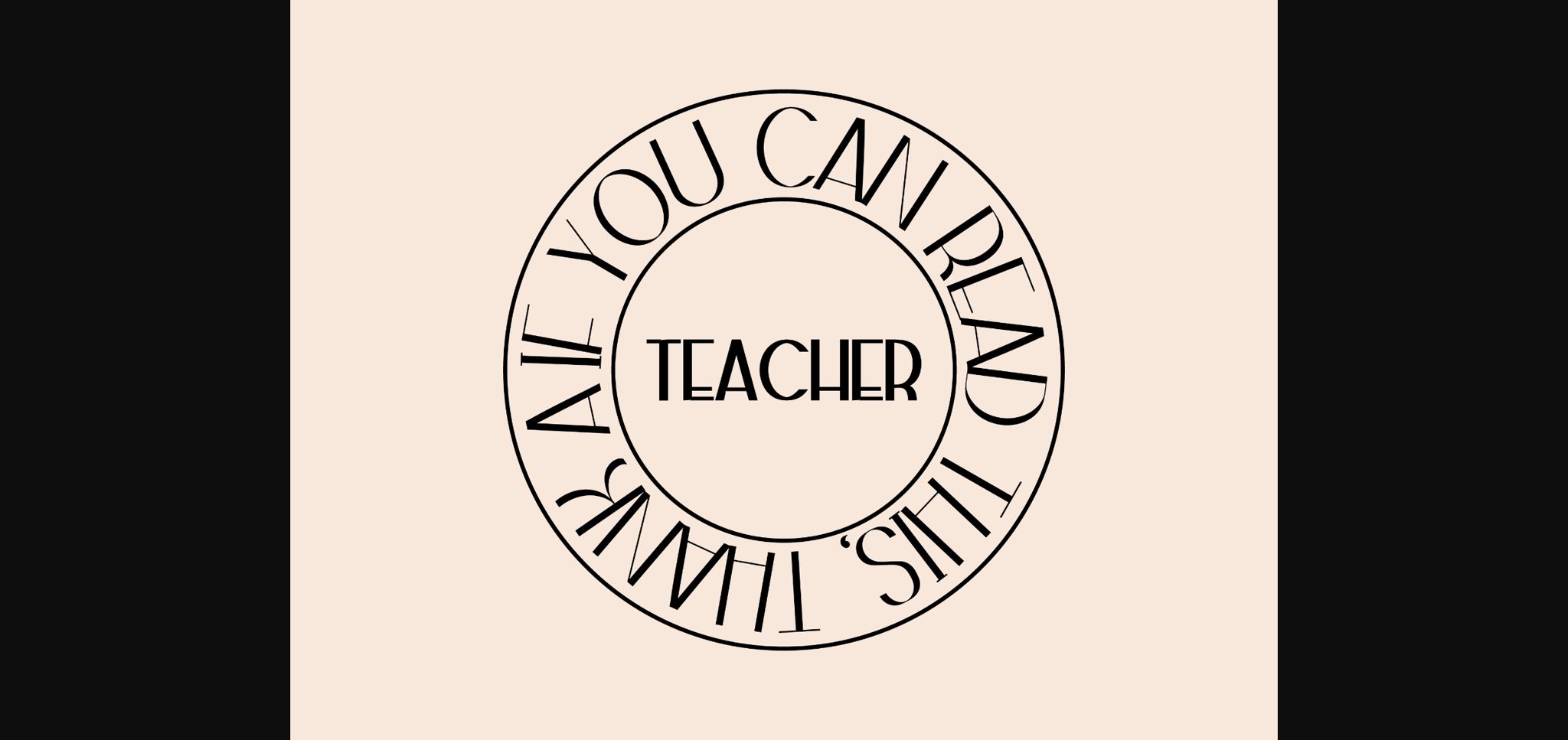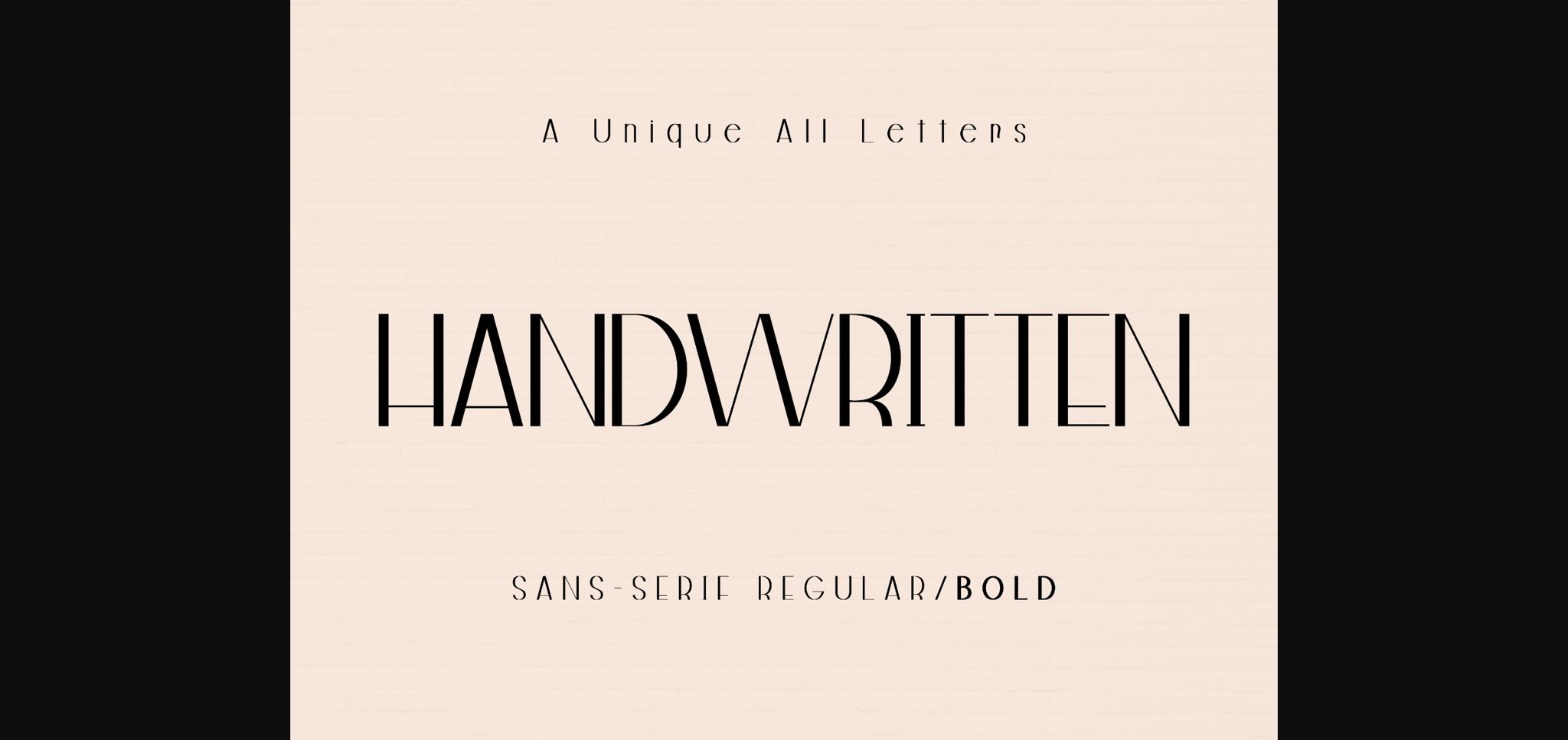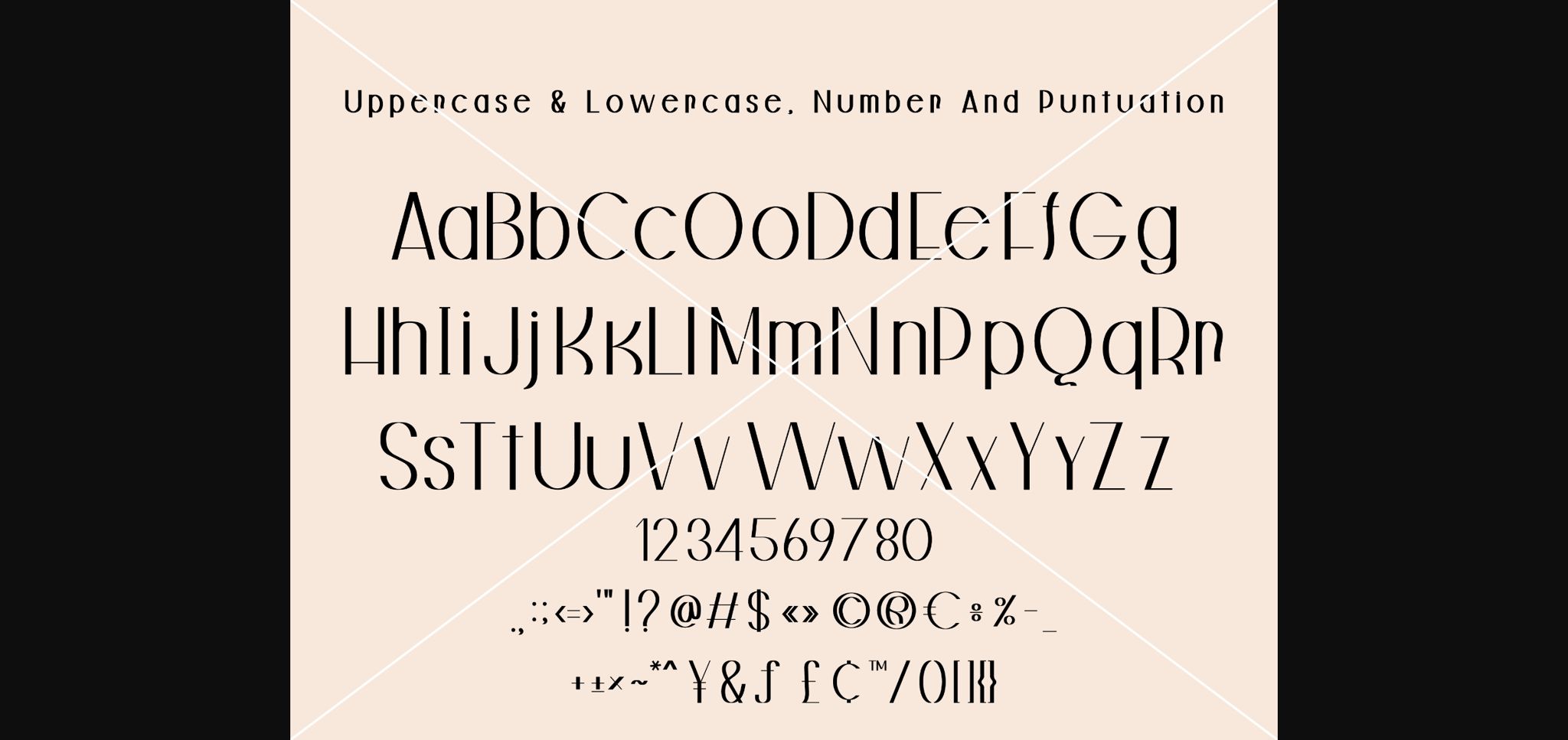
Handwritten Font
About Handwritten Font
Handwritten is a clean and modern minimalist sans-serif font designed for clarity and simplicity. With its sleek lines and balanced letterforms, it conveys a timeless elegance that suits a wide range of applications. The font’s subtle rounded edges add a touch of warmth while maintaining its contemporary appeal. Whether used for headings, body text, or logos, Handwritten Font brings a sense of sophistication and sophistication to any design project.